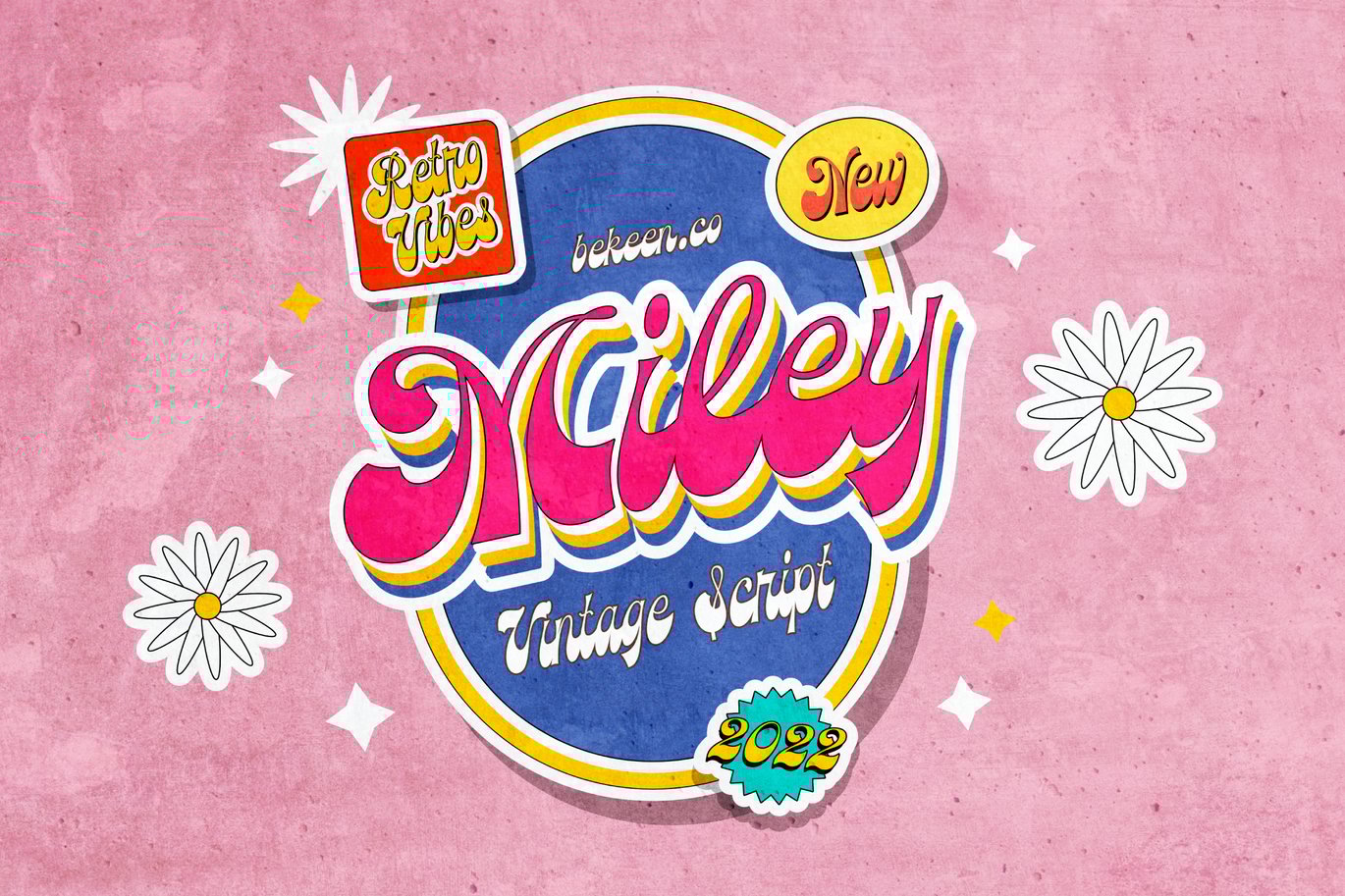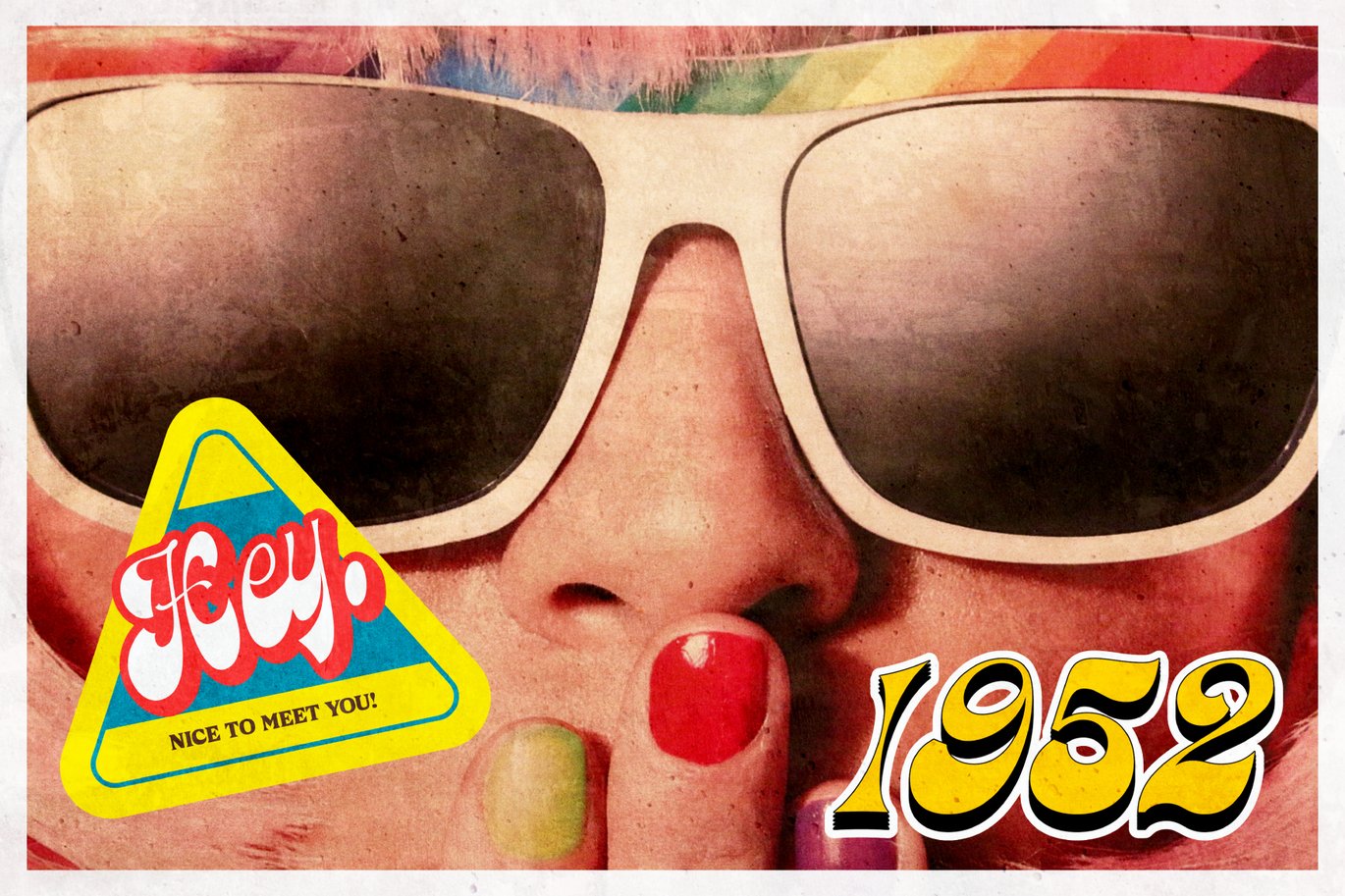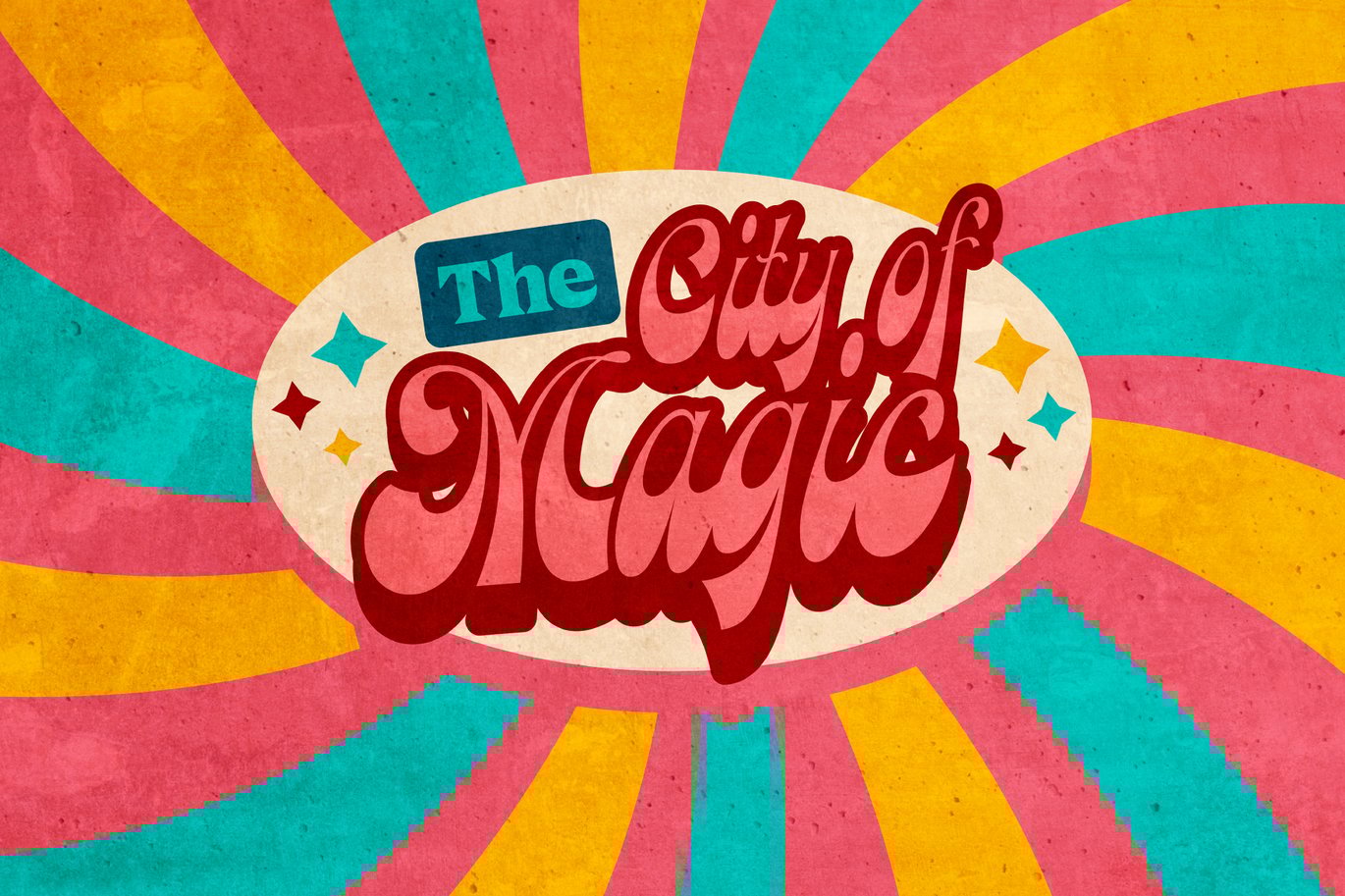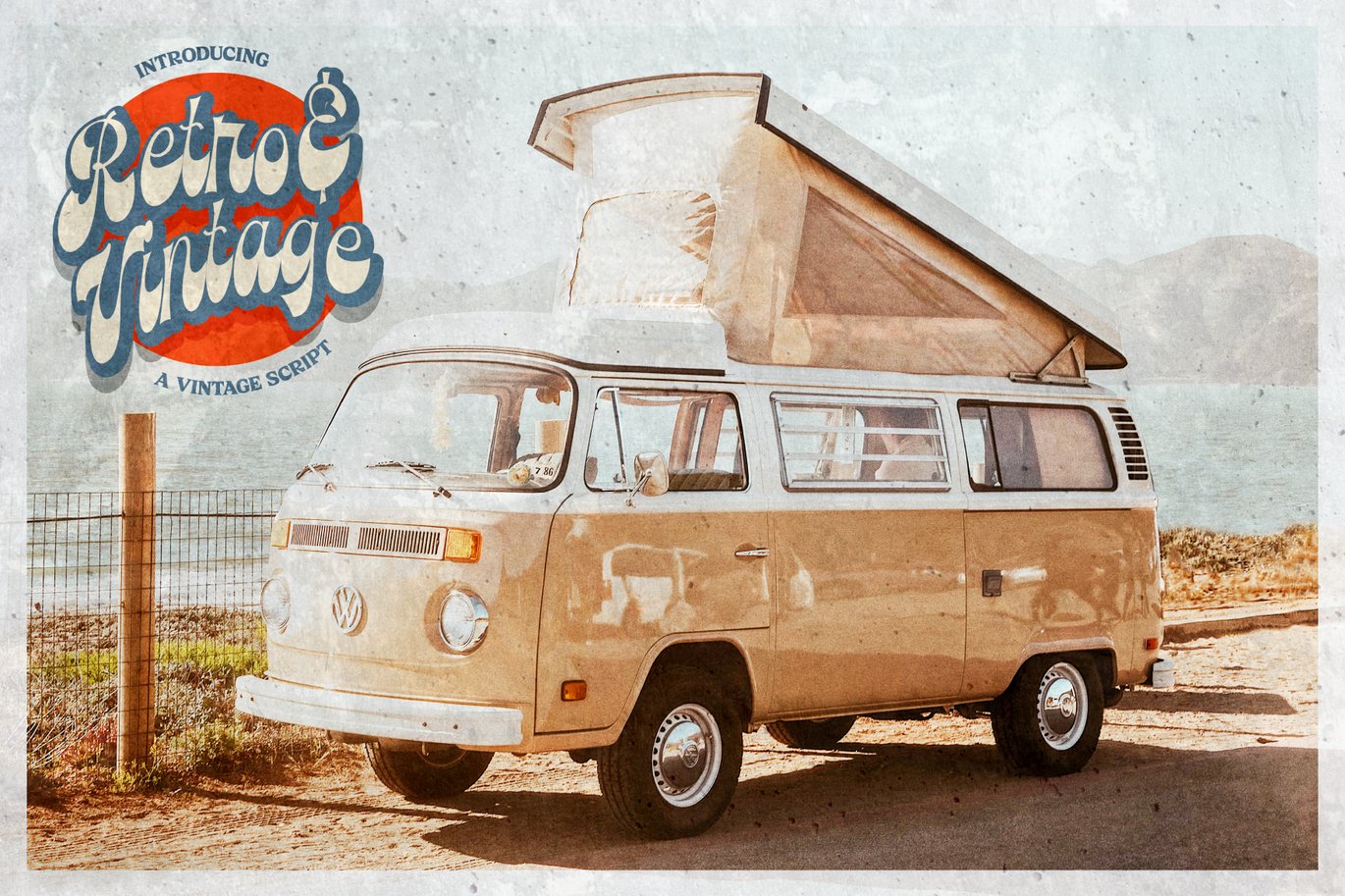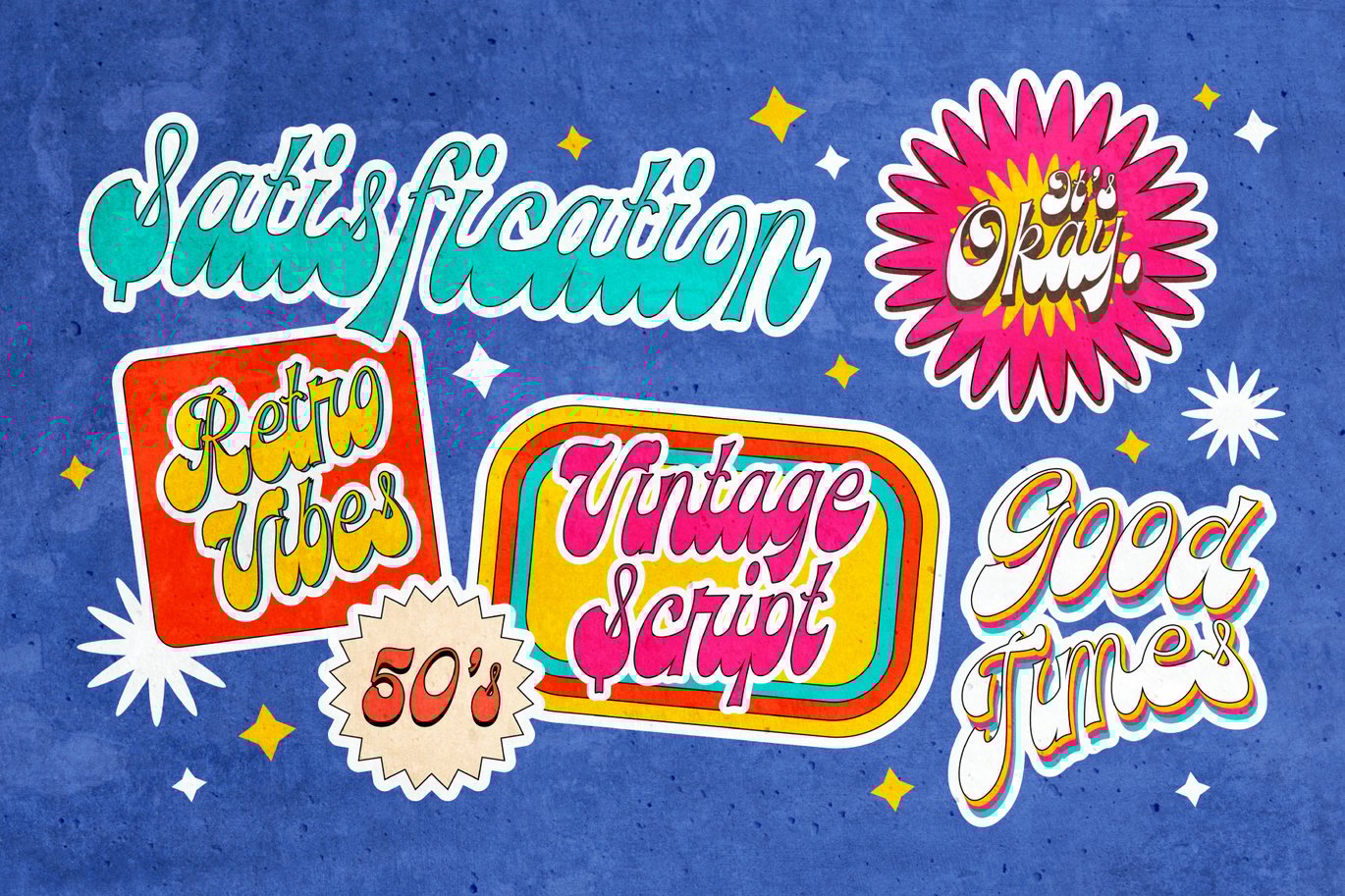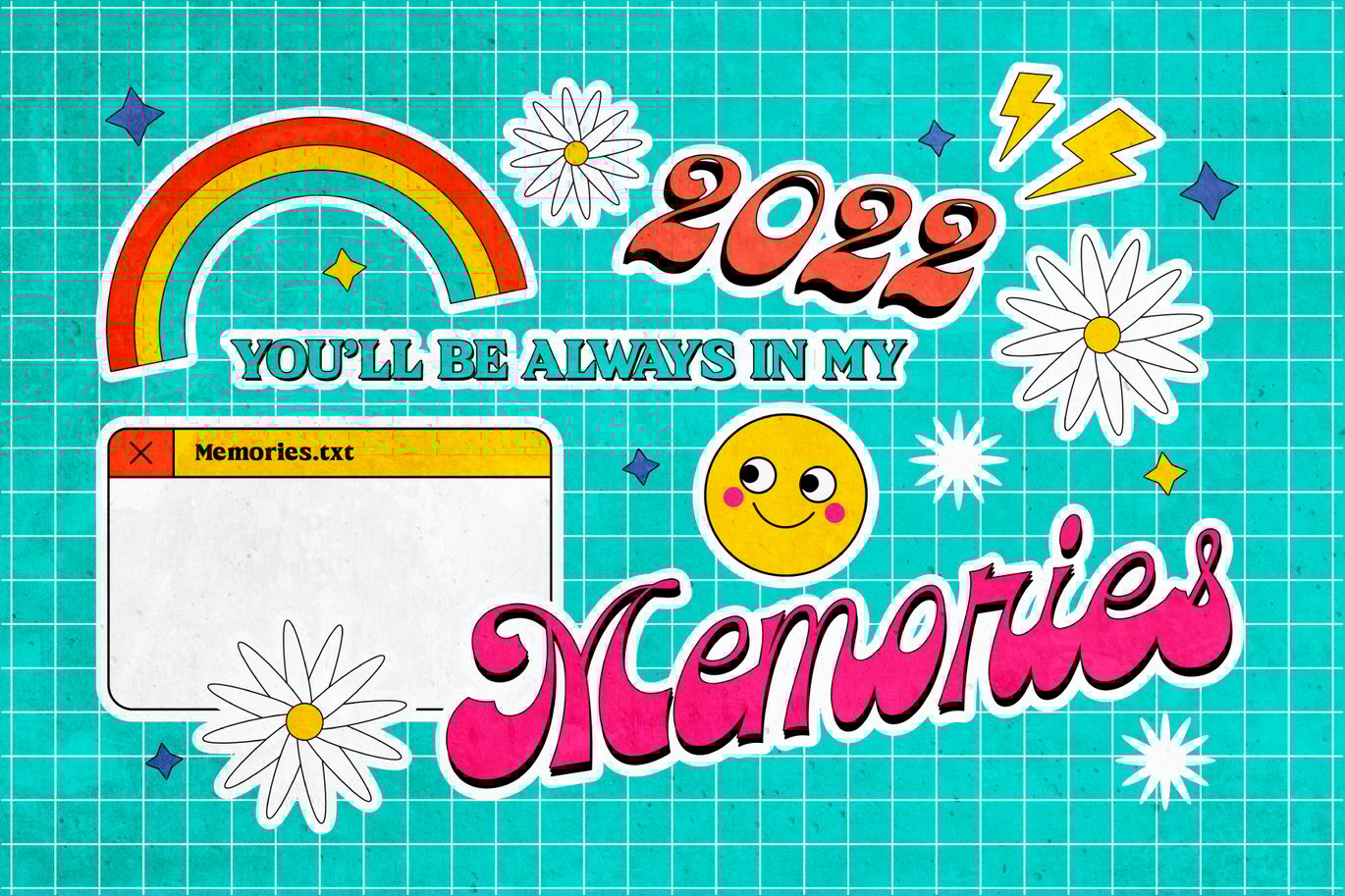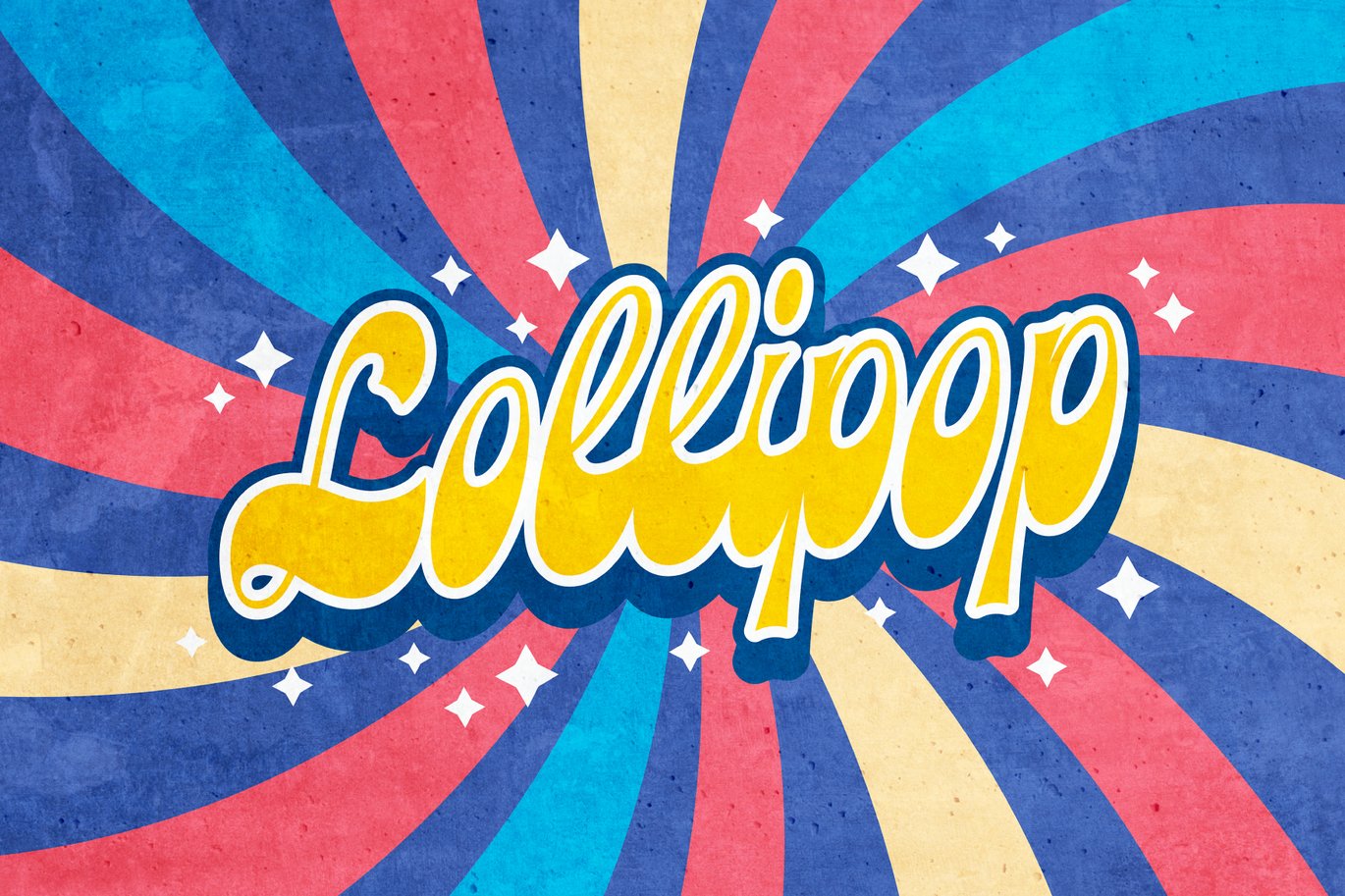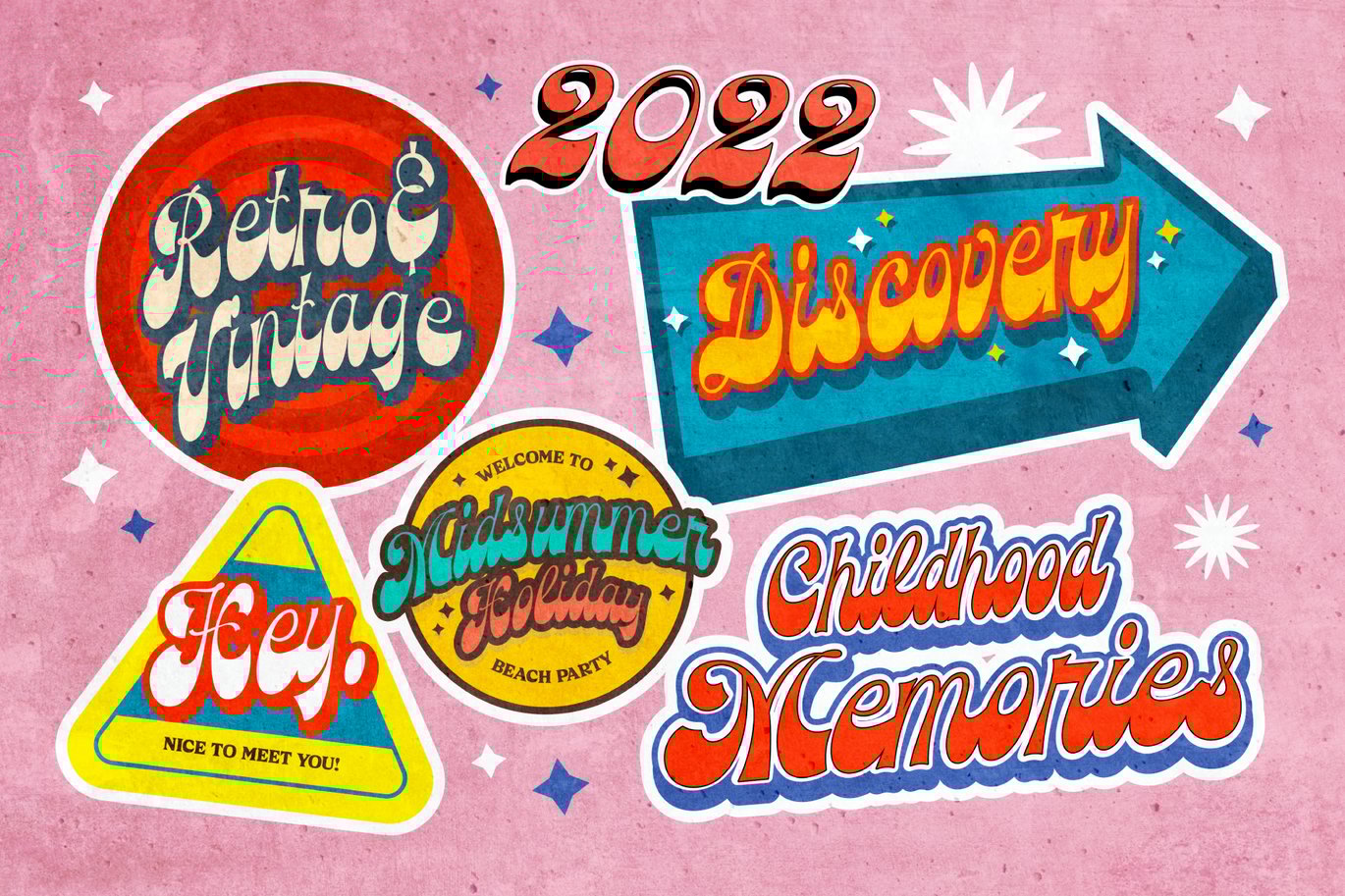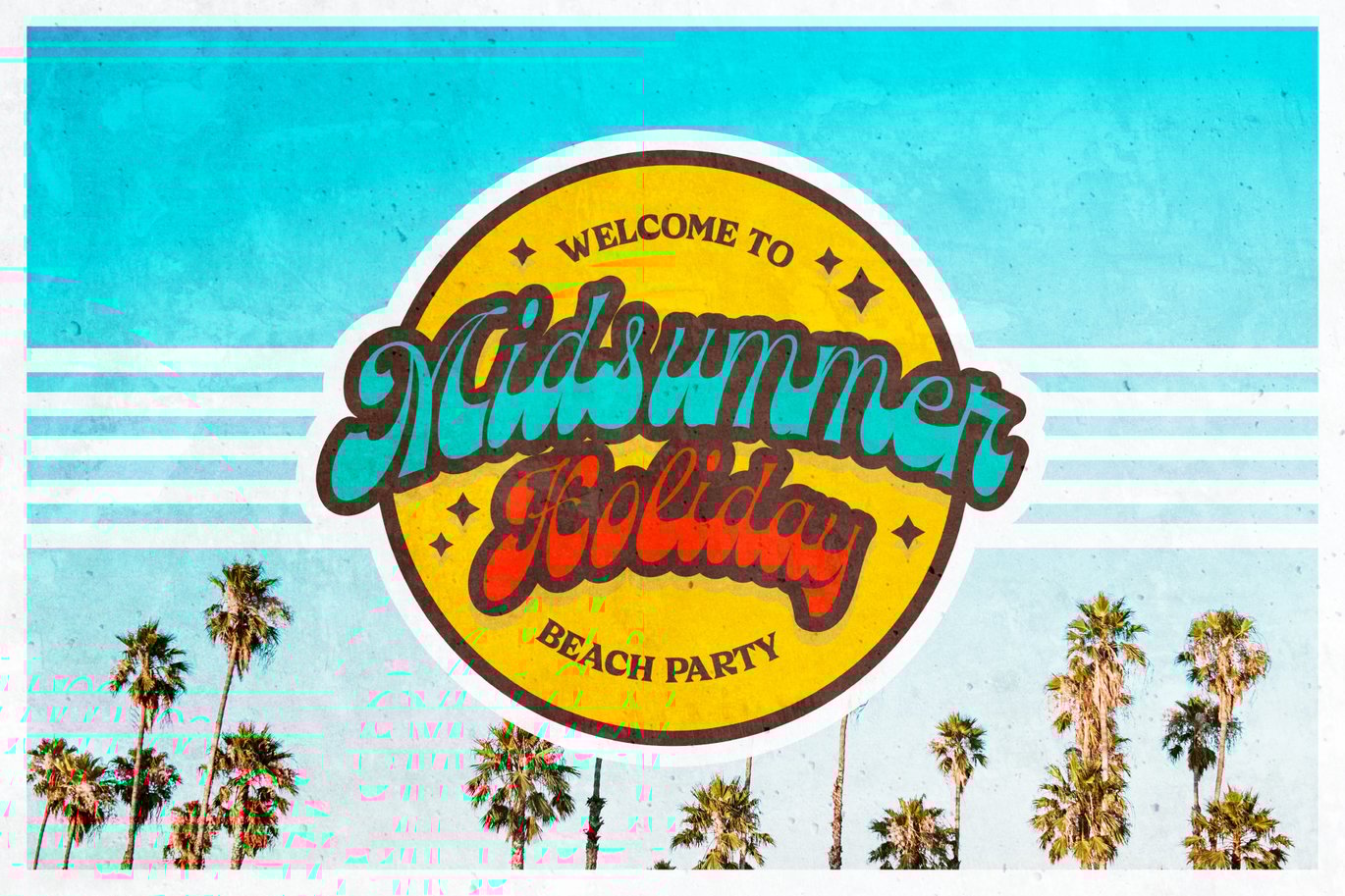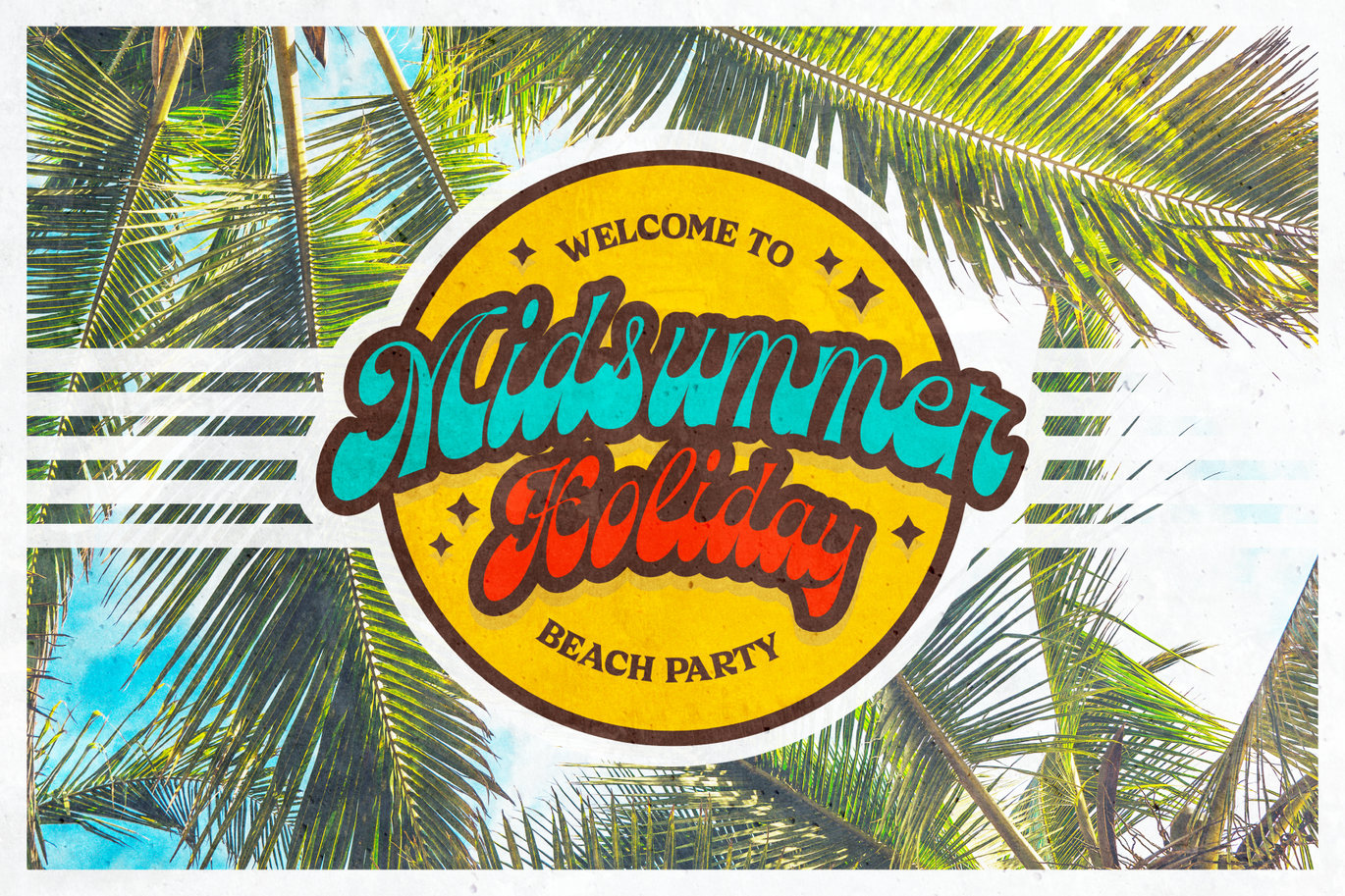
Miley Vintage Script Font
Looking for a cool font with a retro style? You’ll be fall in love with Miley. Miley will bring you to the 80s era where you could find cool posters, advertisements, and labels. This font perfect for logo, badge, poster, label, sticker, t-shirt/apparel, and more.
- Lowercase and Uppercase
- Numerals and Punctuation